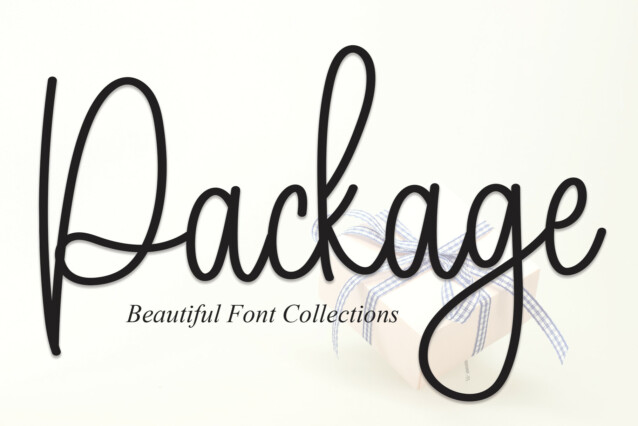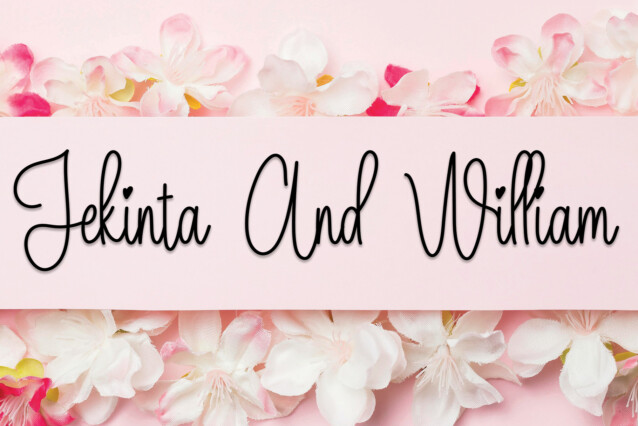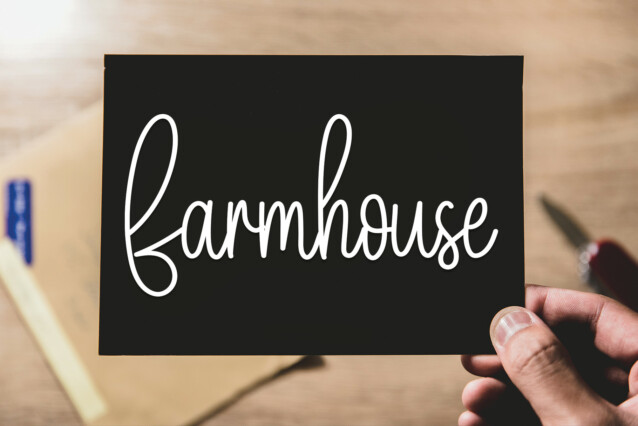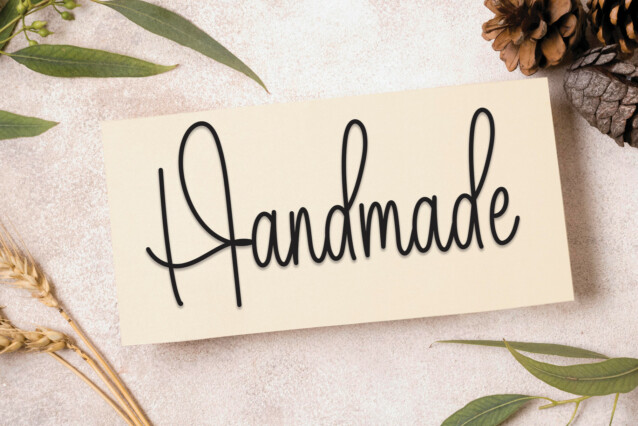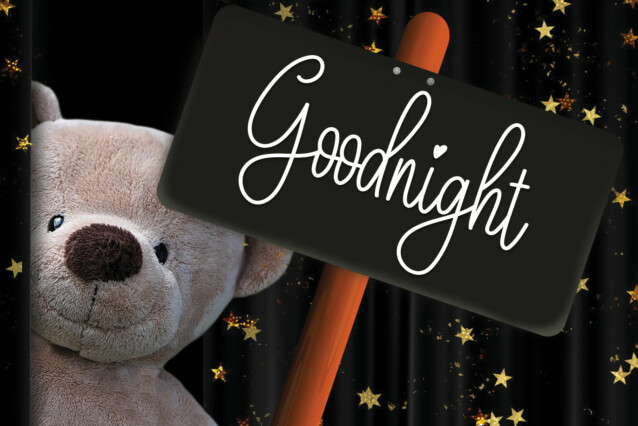
Package Script Font
Package Script Font is a lovely and timeless handwritten font. It is the best choice for creating eye-catching logos, branding, and quotes. Every letter has a unique and beautiful touch, which will make your design come alive!